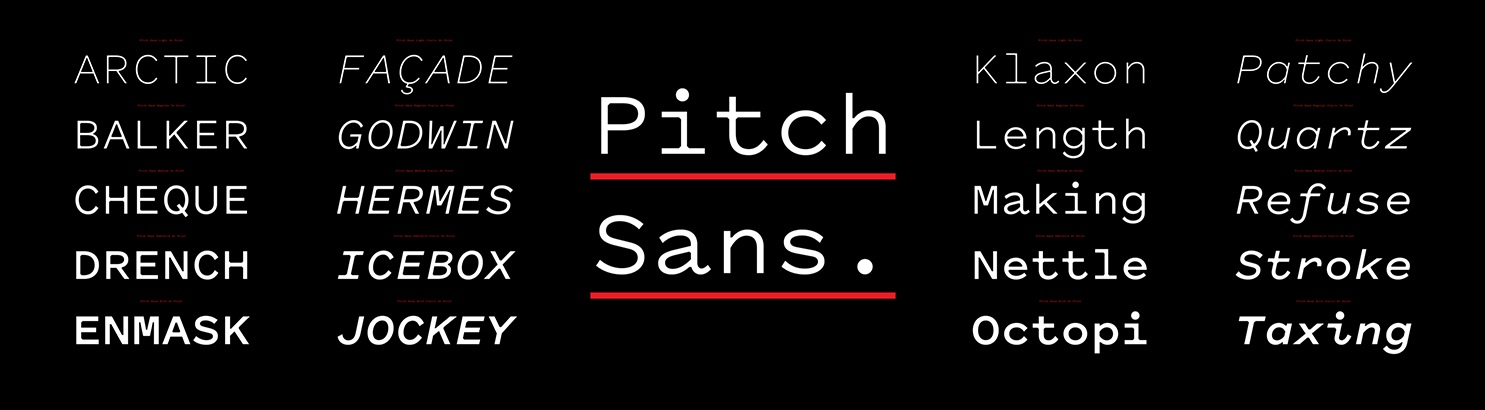
Pitch Sans Font
Pitch Sans Font is perfect for modern business presentations, professional pitch decks, startup company branding, investment proposal design, corporate communication materials, sales presentation graphics, executive meeting documents, and persuasive business campaigns.
What makes Pitch Sans Font exciting is its persuasive clarity that embodies confident communication and professional presentation excellence with business authenticity and pitch-perfect precision. The font features clean letterforms with presentation-optimized proportions and persuasive character that evoke boardroom presentations, investor meetings, and the compelling clarity of successful business pitches and professional communication. Its distinctive presentation styling and business appeal communicate confidence, clarity, and professional competence, making every message feel delivered with executive presence and touched by the persuasive power of pitch-perfect business communication and presentation excellence.
The Pitch Sans Font family includes regular weight with uppercase and lowercase letters, numerals, punctuation marks, and comprehensive business symbols. Premium versions often feature multiple weights and presentation alternates that enhance the professional, persuasive aesthetic perfect for business and corporate applications.
This confident business typeface brings instant professionalism and presentation credibility to any pitch-focused project. Pitch Sans Font Free Download delivers exceptional results for business organizations and professional services seeking to communicate persuasive excellence, presentation clarity, and business professionalism to investors and corporate audiences.
The persuasive character of Pitch Sans Font makes it particularly valuable for startup companies, business consultants, and investment presentation specialists. Its excellent readability ensures business messaging and pitch communications remain crystal clear while maintaining the distinctive professional aesthetic that appeals to executives seeking compelling business presentations and persuasive communication.
Business presentation marketers appreciate how Pitch Sans Font effortlessly conveys professional authenticity and persuasive clarity. The font's clean proportions and business details create authoritative presentation materials that establish confidence with audiences who value business excellence, presentation skills, and the compelling clarity of pitch-perfect business communication and professional persuasion.
The versatile professionalism of this typeface extends to business education, sales training, and corporate consulting where presentation authenticity enhances business credibility and professional appeal. Pitch Sans Font Free Download provides creative professionals with an essential tool for developing memorable, persuasion-driven designs that resonate with audiences who embrace business excellence, presentation mastery, and the clean clarity of pitch-perfect professional communication in their business and corporate experiences.